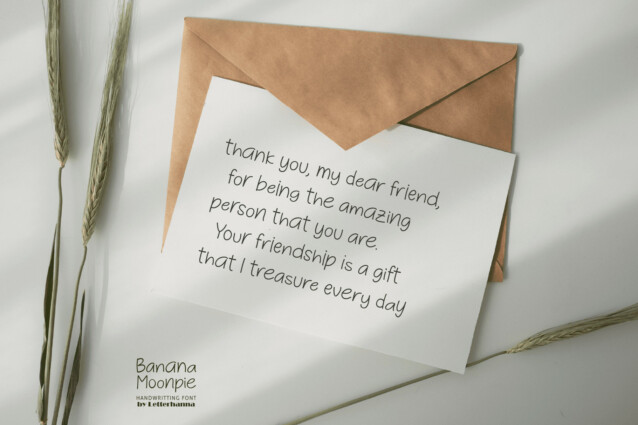
Meet Banana Moonpie, a font shaped like a kid’s handwriting on the back of a paper napkin after dessert. Every curve wobbles just enough to feel real, warm, and full of heart.
Hidden inside is something sweeter: smart contextual alternates that automatically rotate through 3 different lowercase letter sets as you type, so no two words ever look quite the same. It’s like having three little hands taking turns writing your story.
Perfect for bakery branding, kids’ books, dessert packaging, and playful logos that need genuine charm instead of repetitive type. Pair it with soft pastels and watch your design come alive with natural rhythm. Ready to let your text feel handmade and one-of-a-kind? Grab Banana Moonpie now: